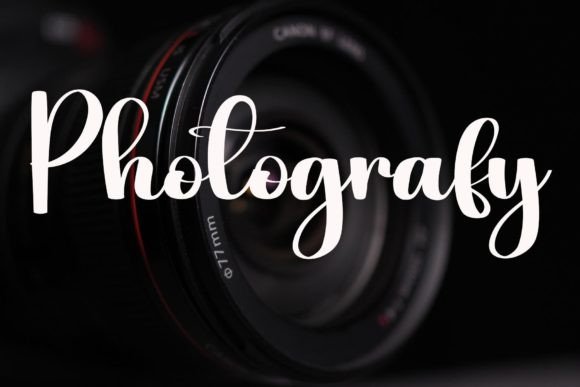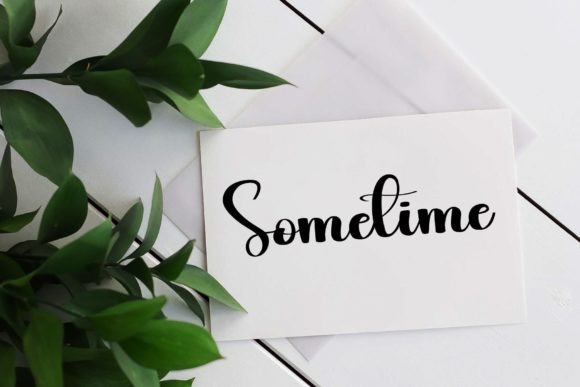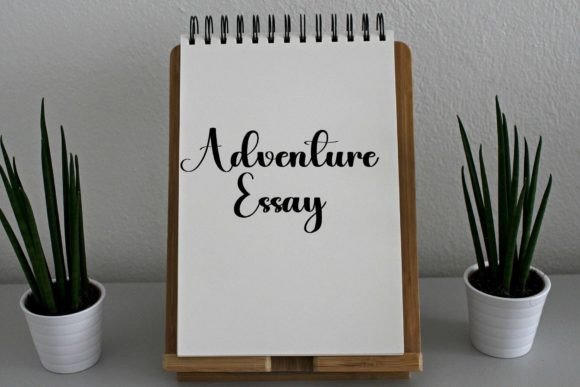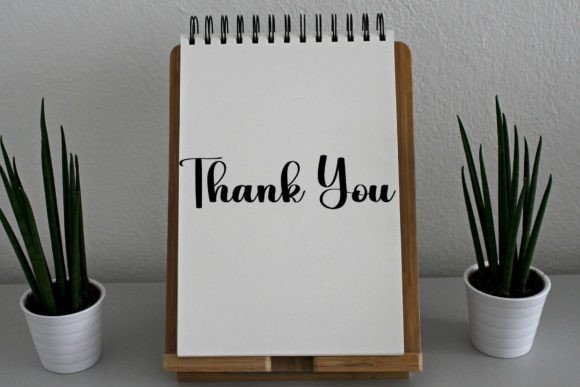
Anythink Font
“Anythink: Where Sweetness Meets Luxury
Introducing Anythink, a sweet handwritten font that effortlessly combines sweetness with luxury, infusing your design projects with a delightful charm and sophistication. With characters that gracefully dance along the baseline, this font adds a touch of liveliness and elegance to every creative endeavor, making it the perfect choice for projects that demand a blend of sweetness and luxury.
What makes Anythink truly enchanting is its sweet demeanor. The font’s handwritten characters exude warmth and friendliness, making it ideal for projects that aim to evoke a sense of approachability and charm. Picture Anythink adorning wedding invitations, where its delightful script adds a touch of romance and sophistication to the celebration. Imagine it gracing gourmet product packaging, transforming everyday items into luxurious treats that captivate customers with their sweet allure. Visualize it on branding materials, infusing every logo and tagline with a sense of sincerity and elegance. With Anythink, your designs are elevated to a level of sweetness and luxury that resonates with viewers.
The font’s versatility shines through in various applications. Its playful characters make it ideal for children’s books, creating a whimsical and captivating reading experience. Whether you’re designing posters, social media graphics, or event invitations, Anythink becomes a delightful companion, enhancing your content with its charming presence. Its ability to dance along the baseline adds a touch of luxury, making every design project a visual delight.
Furthermore, Anythink is more than just a font; it’s an emotion—a feeling of warmth and sweetness that permeates your designs and captures the hearts of viewers. As you incorporate Anythink into your projects, you infuse them with a sense of joy and elegance, making them truly unforgettable and endearing to your audience.
Embrace Anythink as your go-to font for projects that require a blend of sweetness and luxury. Let its delightful characters and playful baseline dance add a touch of sophistication to your designs, making them truly enchanting. Whether you’re creating invitations, packaging, branding materials, or any other creative content, Anythink transforms your ideas into delightful experiences, leaving a lasting impression on everyone who encounters them.”